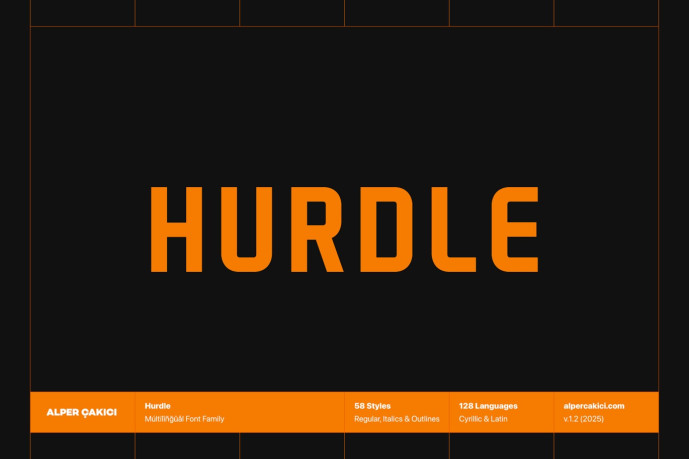
Meet Hurdle, a clean and contemporary sans serif type family built for designers who value precision, readability, and sophisticated simplicity. Crafted with smooth curves, balanced forms, and purposeful geometry, Hurdle delivers a polished, modern voice across both print and digital environments.
Hurdle is a versatile sans serif built to meet today’s design challenges with clarity, elegance, and strength.